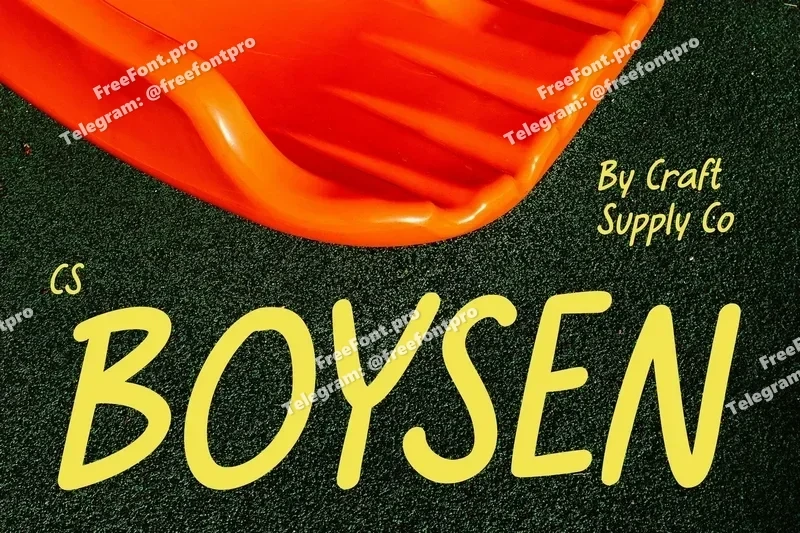
Boysen – Handwritten Sans Serif Font
Handwritten Font with Rounded Strokes This is a friendly handwritten font that bursts with joy and creativity. Its sans serif rounded strokes and playful shapes give it a natural, approachable feel perfect for adding warmth and personality to any design. Designed to look spontaneous yet balanced, this font captures the charm of handwriting with a fun and lively twist.
Rounded Strokes for a Soft and Welcoming Feel The smooth, rounded edges of this font create a comforting and cheerful impression. Each letter flows effortlessly, reflecting a sense of friendliness and openness. This makes it a perfect choice for designs aimed at children or audiences who appreciate a lighthearted and inviting aesthetic.
Playful Shapes for Creative Expression This font stands out with its fun, slightly quirky letterforms that bring visual rhythm and movement to your text. Its playful character makes it ideal for kids’ books, educational materials, or creative posters where imagination and happiness take center stage.
Perfect for Fun and Whimsical Designs From children’s projects to joyful branding or cheerful event graphics, this font adapts seamlessly to a variety of creative uses. Its handwritten charm and approachable personality make it an excellent choice for designs that need warmth, positivity, and energy. With this font, every word feels friendly, genuine, and delightfully fun.